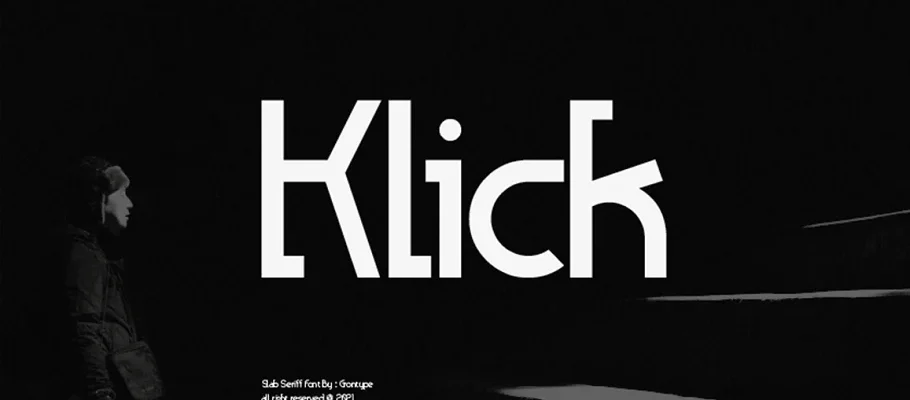
About the Product : Klick is a Slab Serif Font family. The style are light, outline and Blurred. This font is elegant and it based on the combining a variety of styles. Suitable for Logo, greeting cards, quotes, posters, branding, name card, stationary, design title, blog header, art quote, typography Features : Uppercase and lowercase … Continue reading Klick – Slab Font